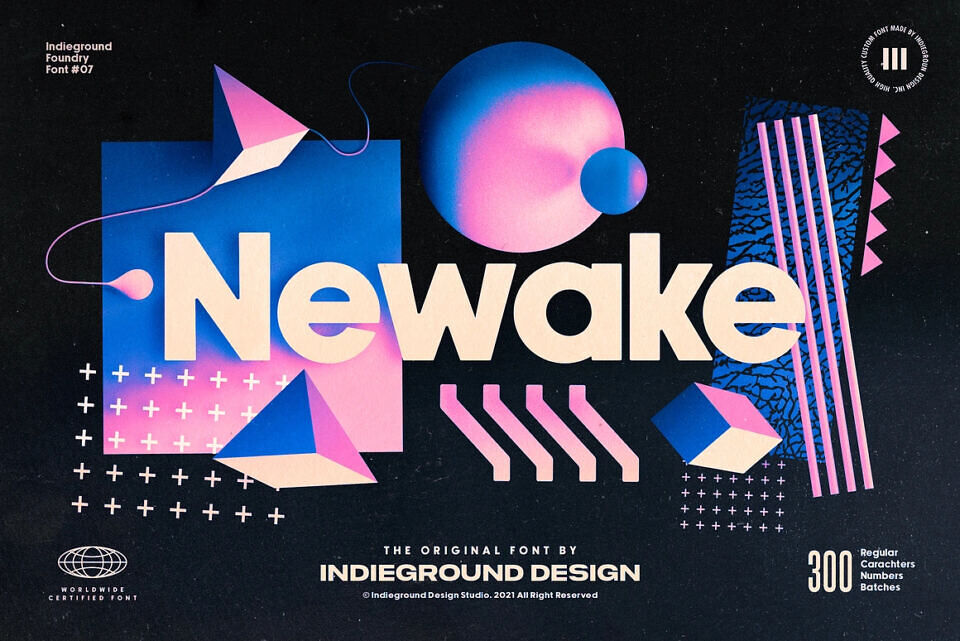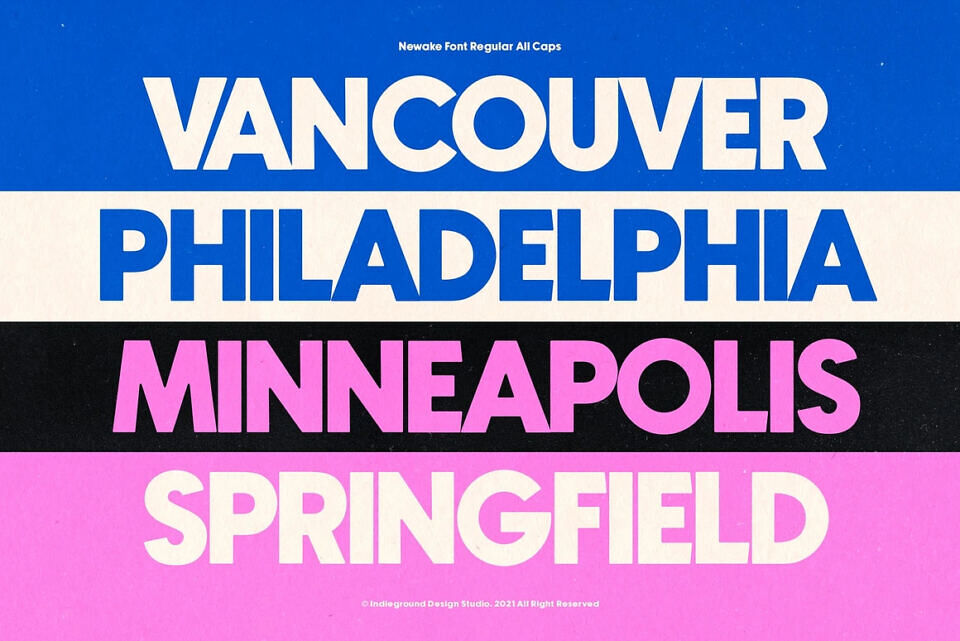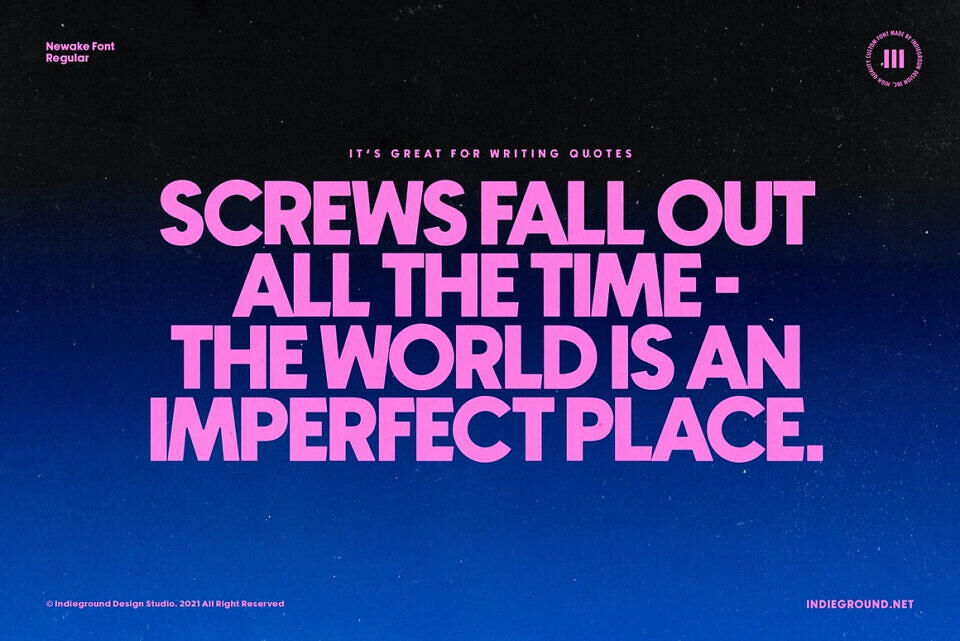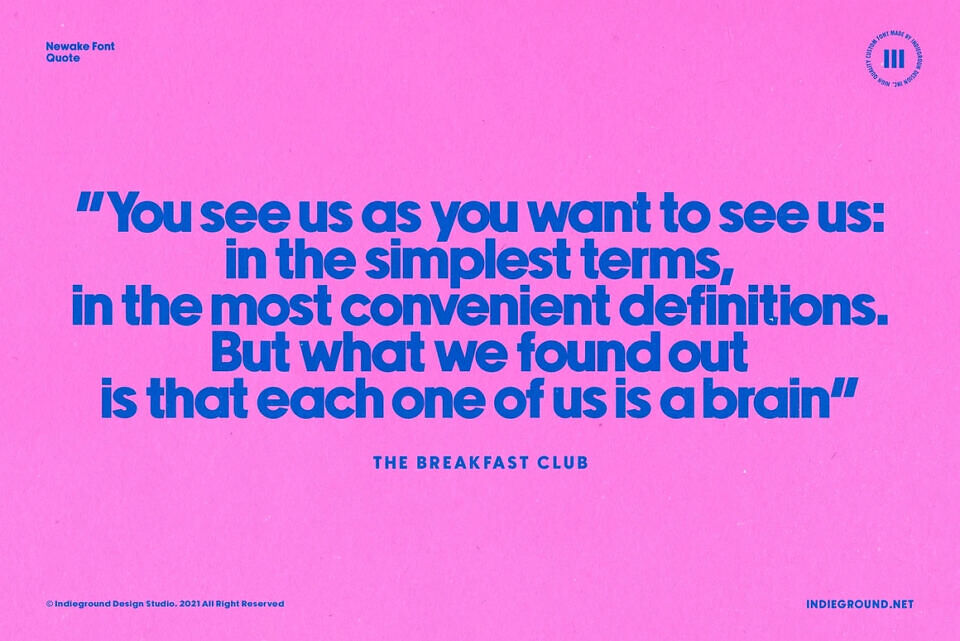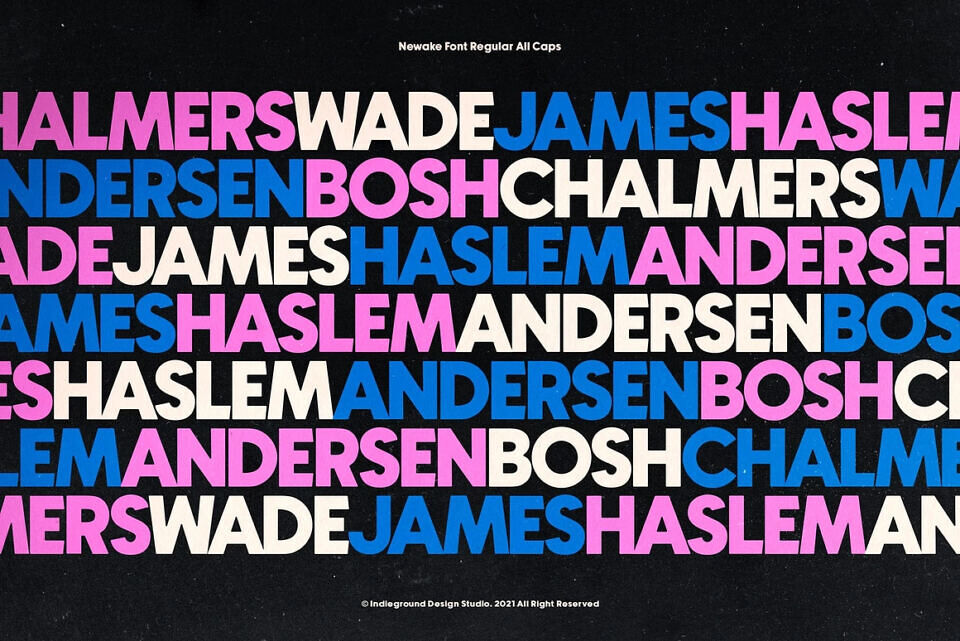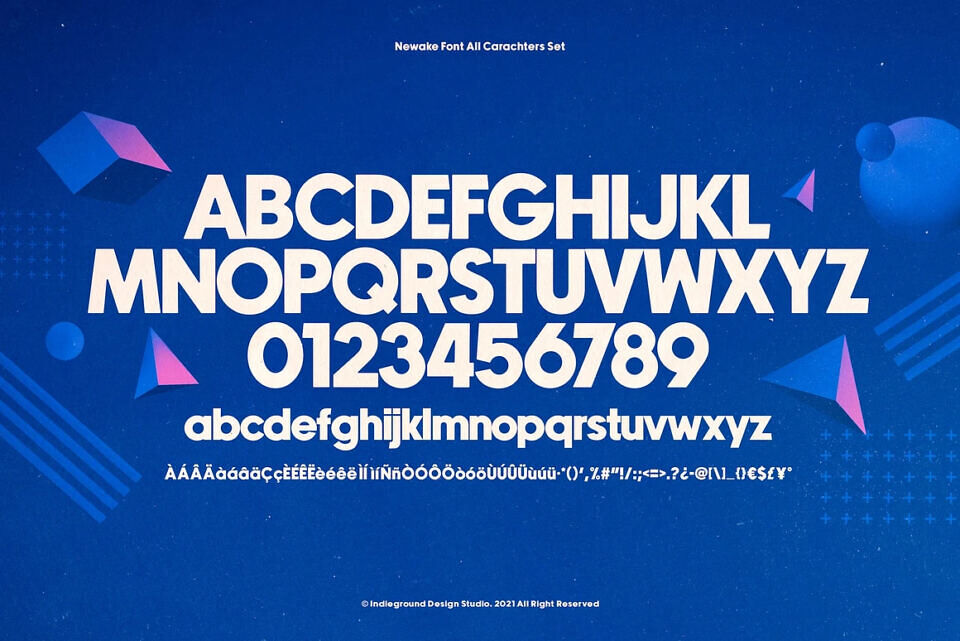
Newake Font
Made by the Indieground Team, Newake is a sans-serif font with an elegant line, perfect for projects with a minimal atmosphere. Perfect for titles, logos, editorial design, packaging and web design.
It fits every graphic design or typography-related project. The slightly rounded corners of the letters give an elegant line to your text and quotes. Newake is a font with a minimal atmosphere that will give a cool style and weight to all your artistic compositions.